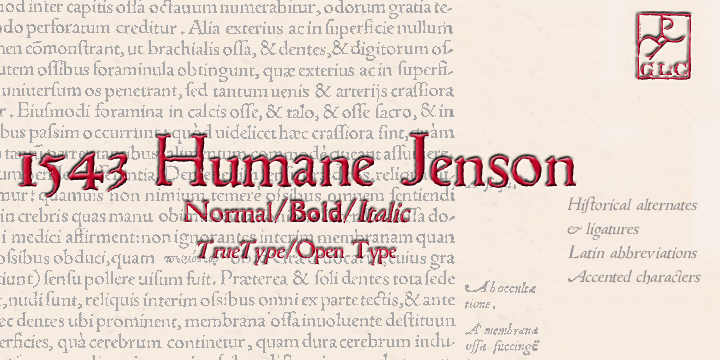
1543 Humane Jenson Font is ideal for scholarly design projects including Renaissance studies programs, historical manuscript reproductions, classical literature publications, medieval and Renaissance museums, academic research institutions, historical typography exhibitions, scholarly publishing houses, and authentic period documentation campaigns. This distinguished typeface works perfectly for university press publications, classical studies departments, historical societies, rare book collections, and projects that celebrate Renaissance humanism and early printing heritage.
What makes 1543 Humane Jenson Font exciting is its authentic Renaissance character that perfectly captures the essence of 16th-century humanist typography and scholarly elegance. The font features classical letterforms with period-accurate proportions that reflect the revolutionary printing innovations and humanist ideals of Renaissance Venice. Its scholarly design elements embody the spirit of Renaissance learning and typographic craftsmanship, making it perfect for projects that need to convey intellectual heritage, historical authenticity, and connection to humanist traditions. The carefully crafted period details create an atmosphere of scholarly sophistication and Renaissance authenticity.
1543 Humane Jenson Font comes in multiple family variations including classical, scholarly, humanist, and Renaissance styles. Each weight maintains the distinctive 16th-century character while offering different levels of historical intensity and academic presence. The font family includes period alternates, classical ligatures, and Renaissance variations that provide designers with comprehensive options for creating truly authentic and historically accurate typographic compositions that honor humanist traditions.